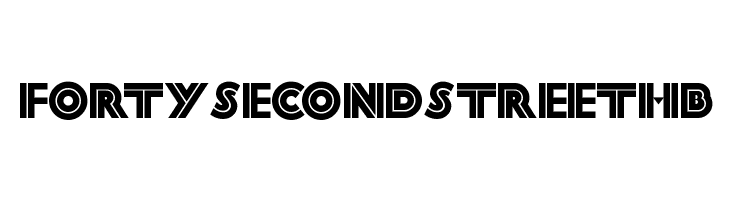
( Fonts by Nick Curtis - www.nicksfonts.com )
A bold, Art Deco-inspired font with geometric shapes and strong lines.
( Fonts by Nick Curtis - www.nicksfonts.com )
A bold, geometric font with Art Deco influences and high contrast strokes.
( Fonts by Nick's Fonts )
A bold, geometric font with Art Deco influences and high contrast strokes.